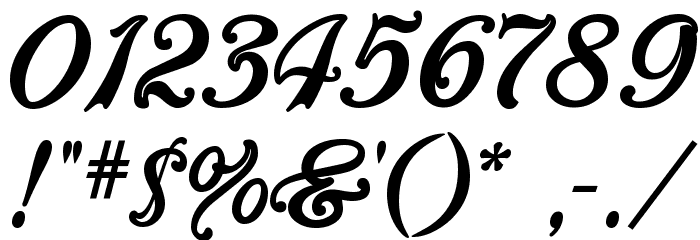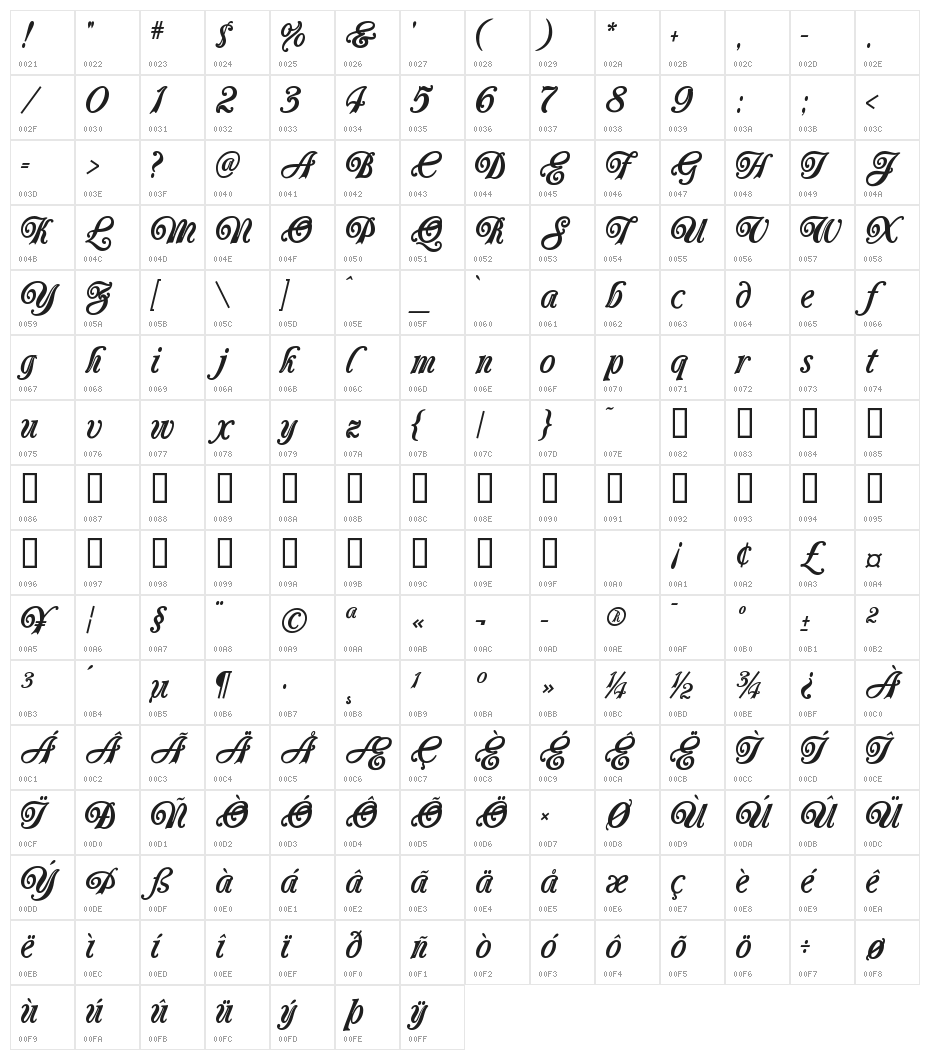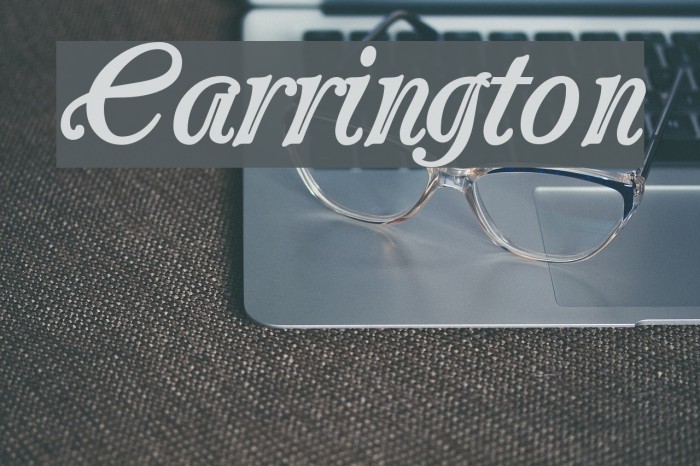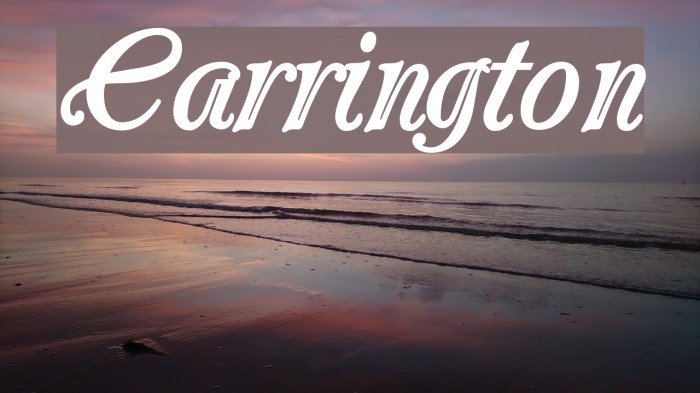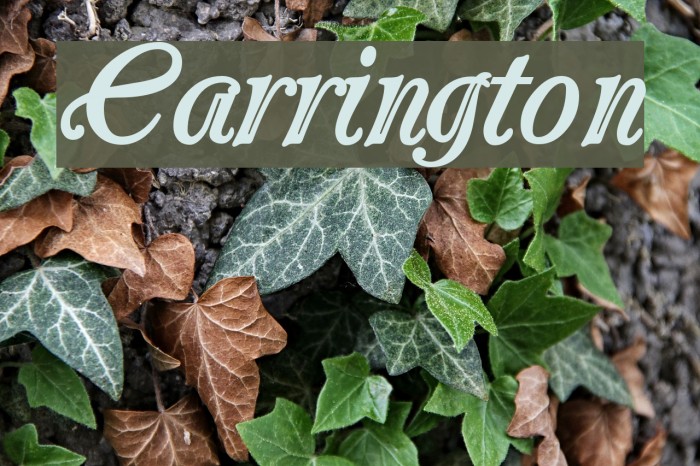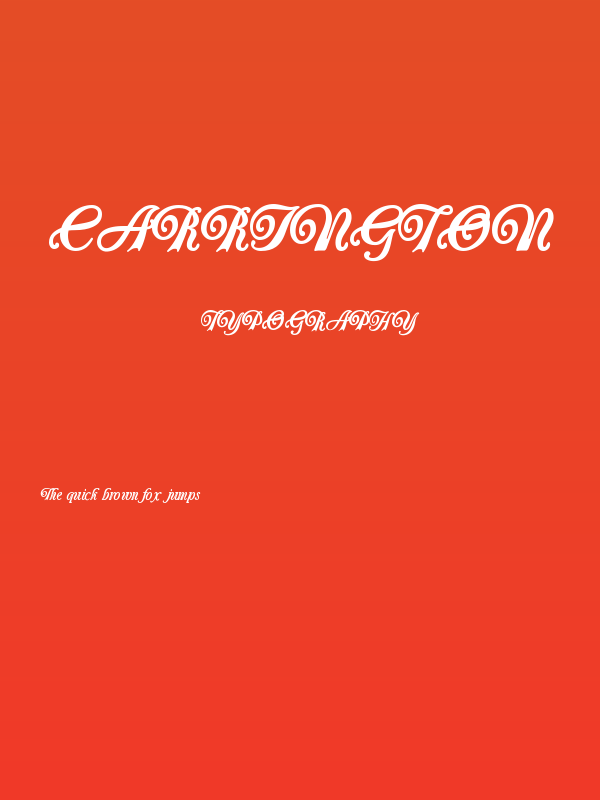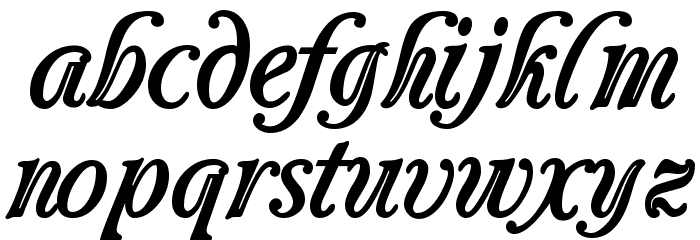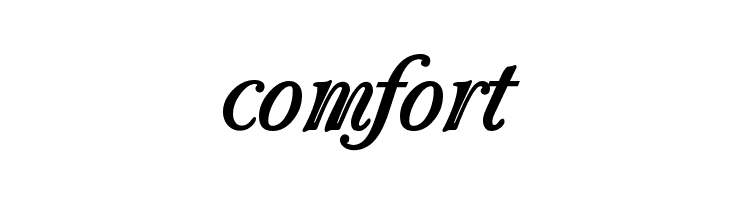
Carrington Font
Carrington Description
This font features an elegant and flowing script style, characterized by its ornate and decorative letterforms. The uppercase letters exhibit a sophisticated flair with intricate curves and loops, while the lowercase letters maintain a smooth and connected appearance. The numerals are designed with a similar elegance, ensuring consistency throughout the typeface. Special characters are crafted with attention to detail, enhancing the overall aesthetic. This font exudes a sense of luxury and refinement, making it ideal for formal and high-end design projects.